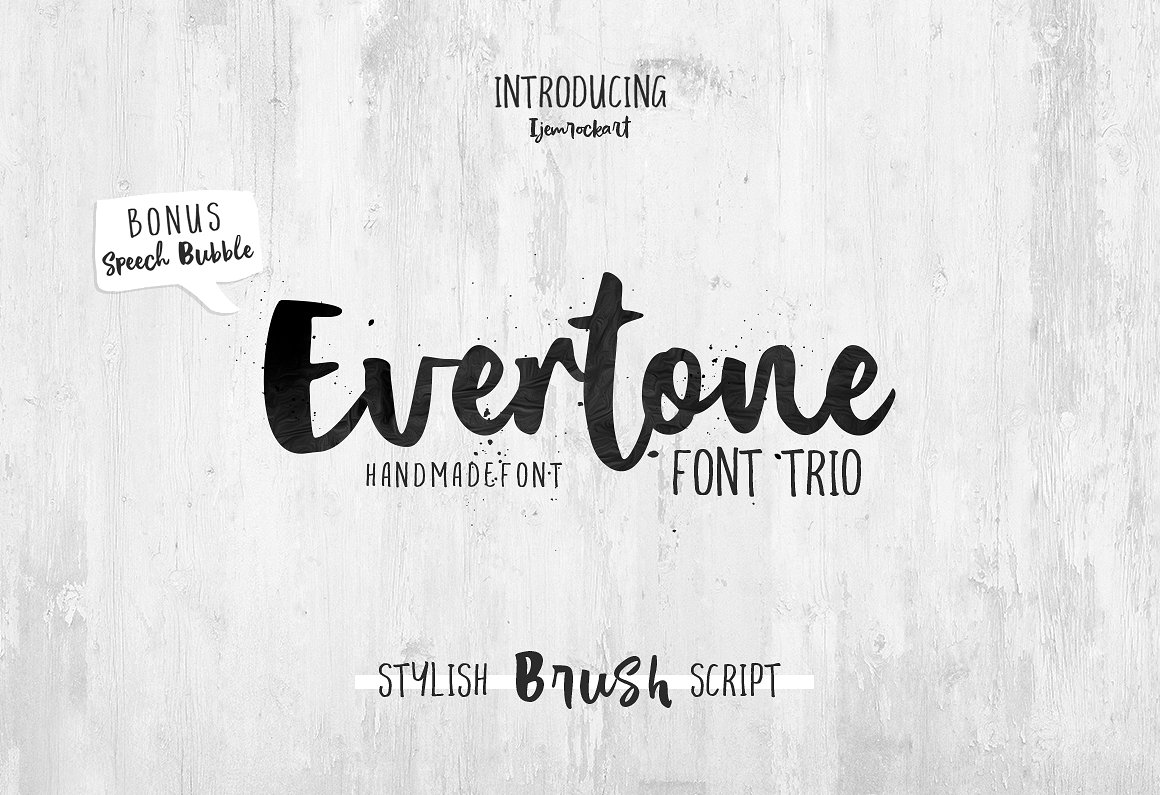
Evertone Brush
Evertone Brush Font
Evertone Font Trio & Bonus is a hand lettering typeface, with authentic Clean and bold imperfections, and a very bouncy baseline It has a perfectly paired complimentary marker font , and a super handy set of bonus Swash. Ideal for logos, handwritten quotes, product packaging, header, poster, merchandise, social media & greeting cards.